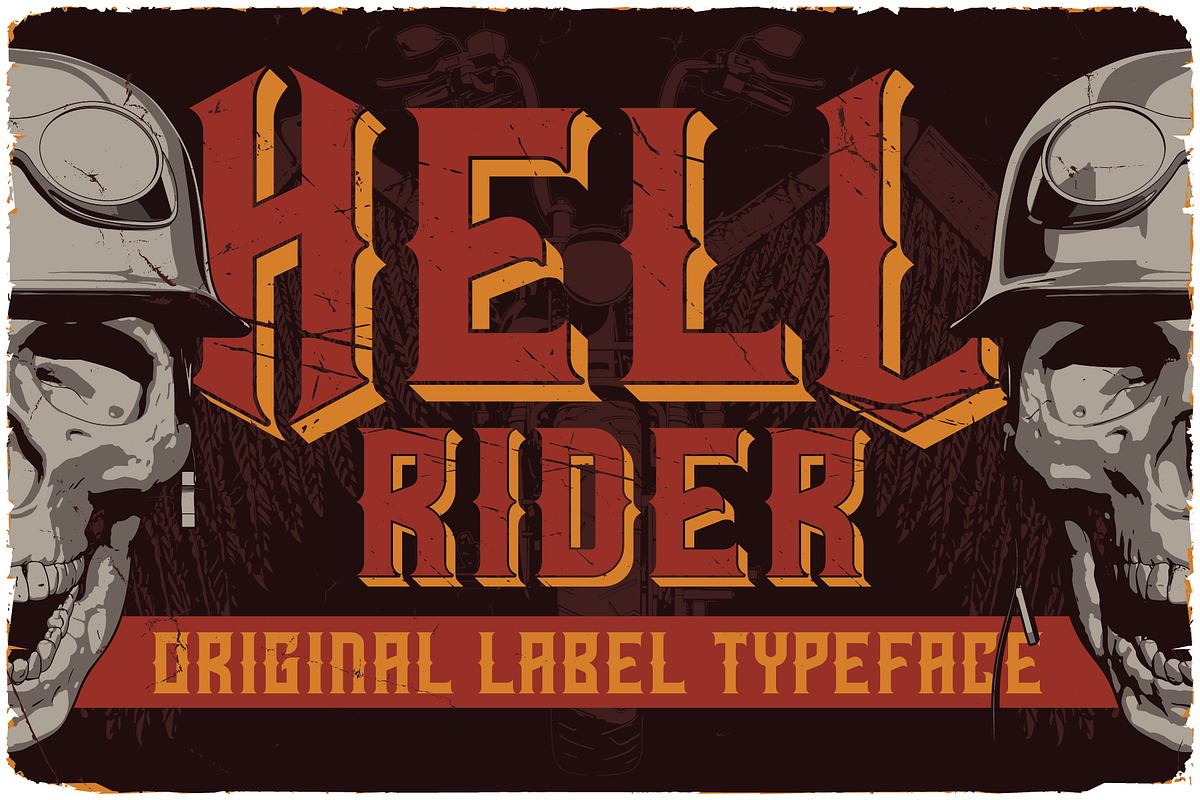
Hell Rider Label Font Free Download
Please note, to use this font for commercial purposes, you must purchase the full version. Hell Rider Label is a bold, rugged font designed to make a statement. With its vintage-inspired letterforms and distressed, weathered look, it’s perfect for designs that need a tough, rebellious vibe. Ideal for biker logos, apparel, posters, and product labels, this font exudes strength and attitude. Whether you're working on a hardcore brand identity or creating eye-catching promotional materials, Hell Rider Label adds an authentic edge to your projects. Test it out and enjoy free download access for personal use. Experience the bold, gritty style of Hell Rider Label Font Free Download before purchasing the commercial license. Bring a rebellious touch to your designs with this powerful font.